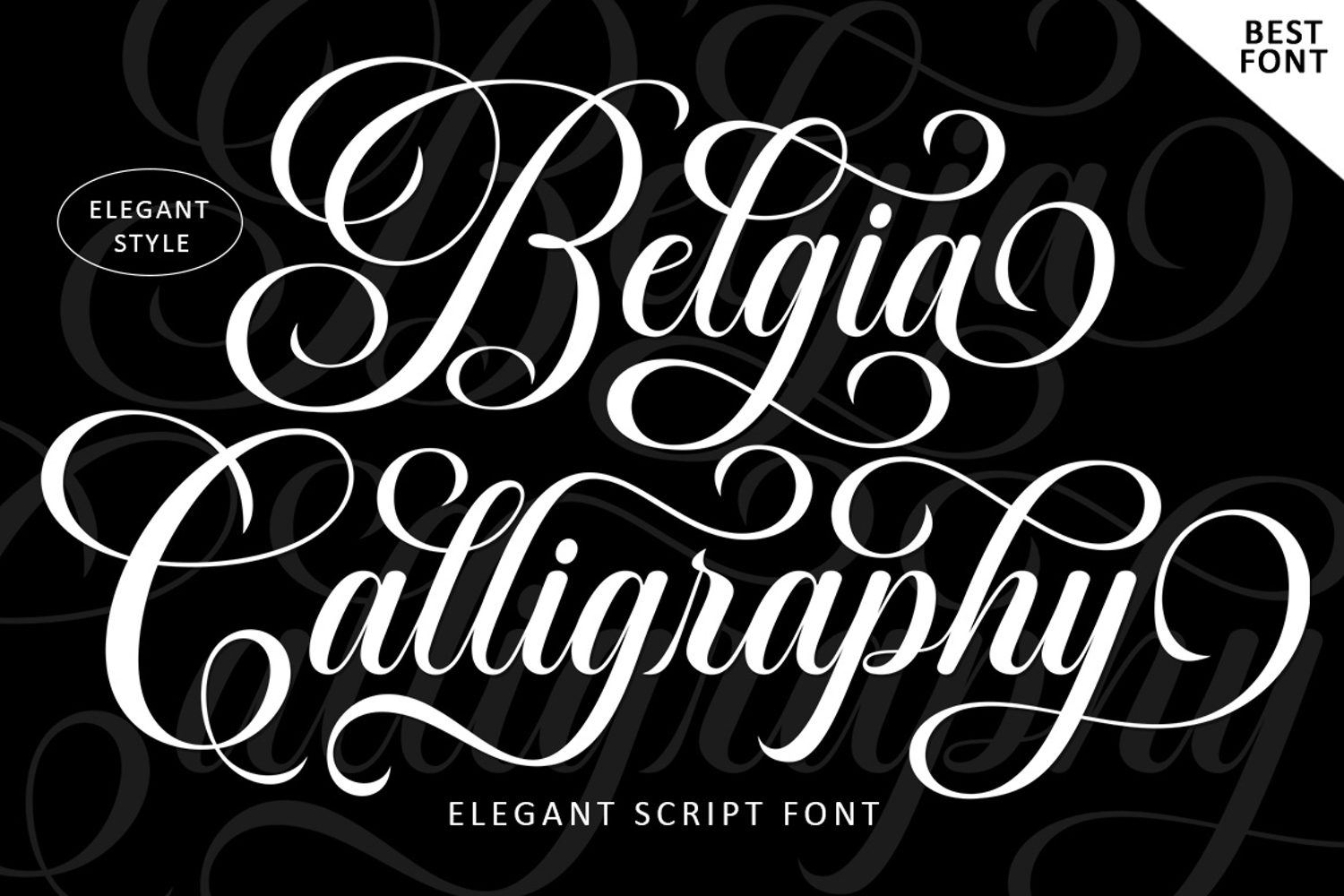
Belgia Calligraphy
Belgia Calligraphy Script is an elegant script font featuring beautiful character variations. This font combines a luxurious style with a modern touch, carefully designed for an elegant look.
This font is visually appealing, clean, feminine, and easy to read thanks to its luxurious letter connections. Its classic style is perfect for a variety of formal uses, including invitations, labels, restaurant menus, logos, fashion, makeup, stationery, novels, magazines, books, greeting and wedding cards, packaging, and all types of advertising.